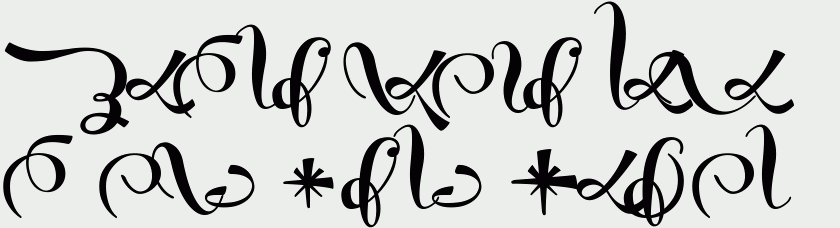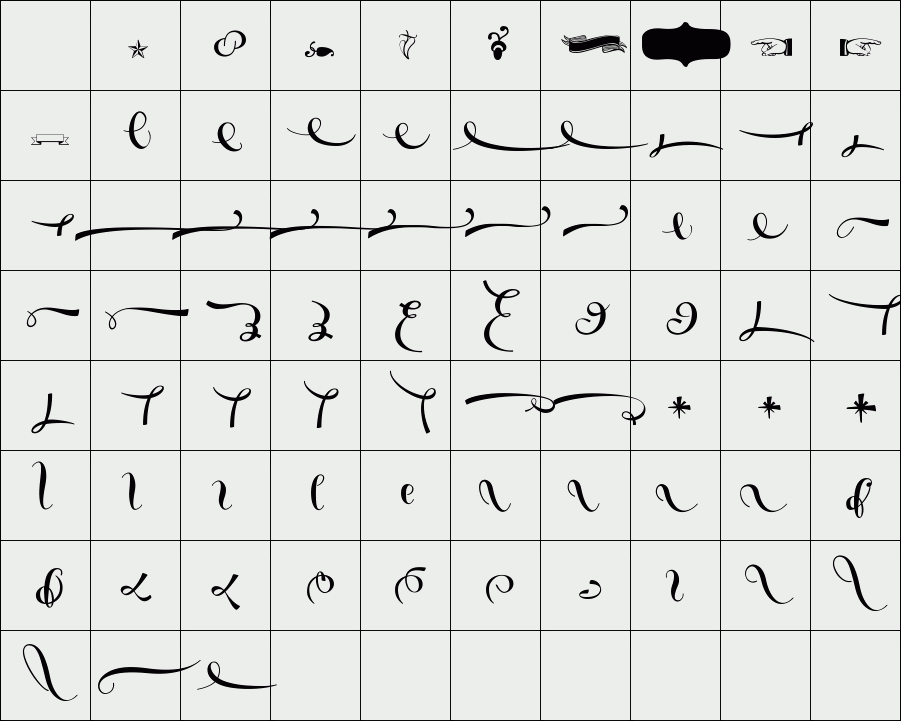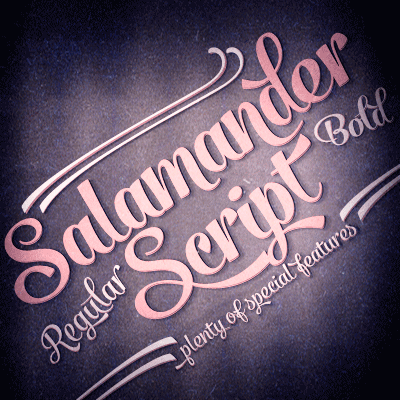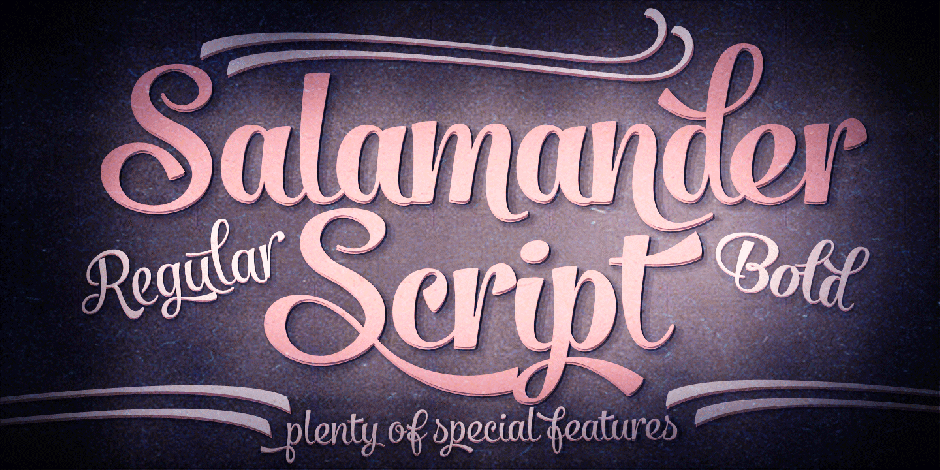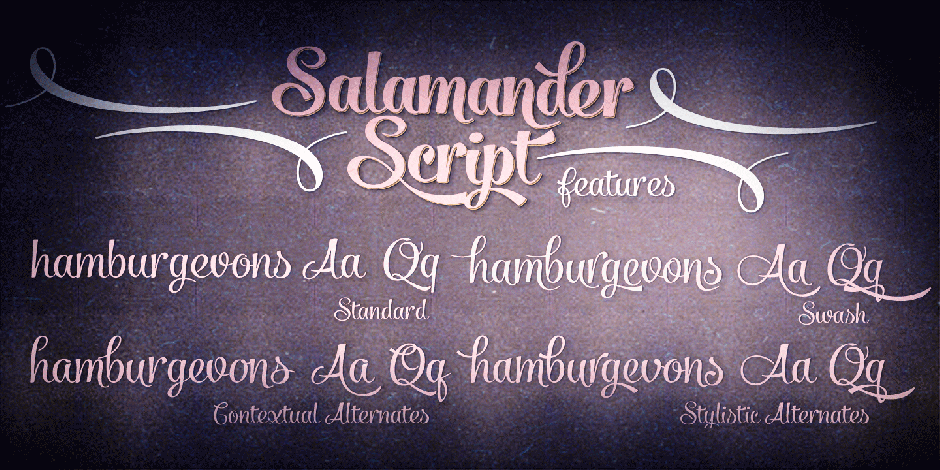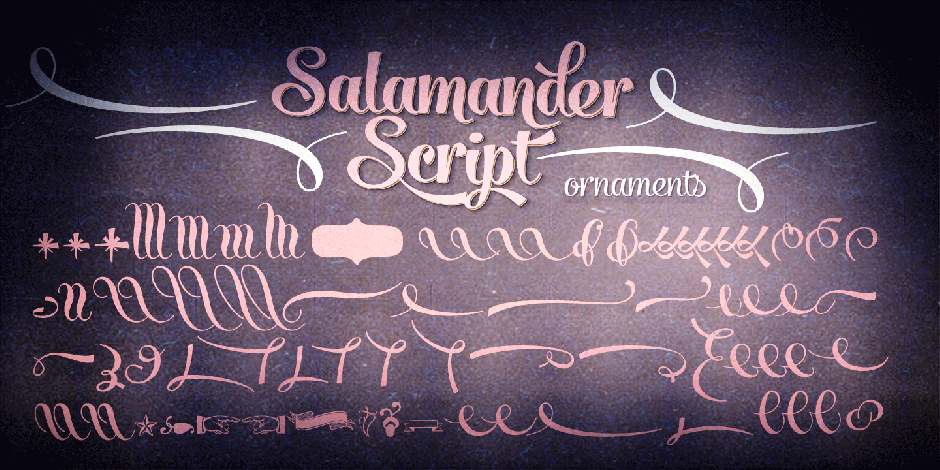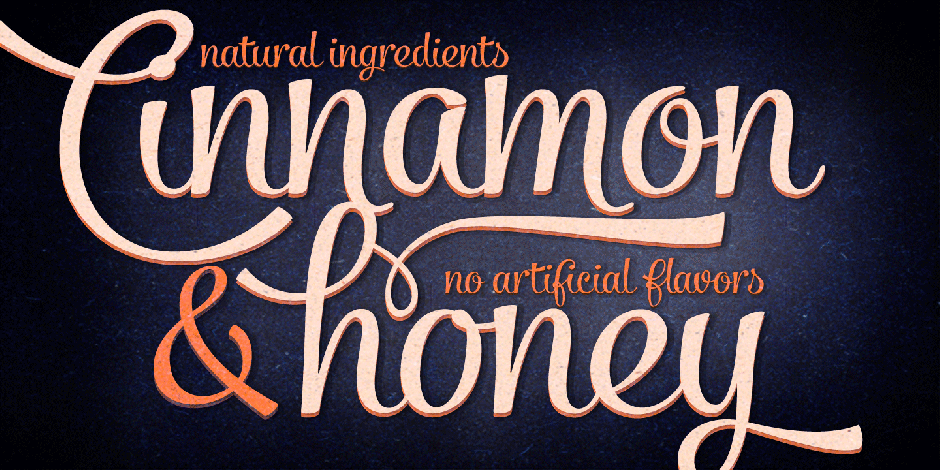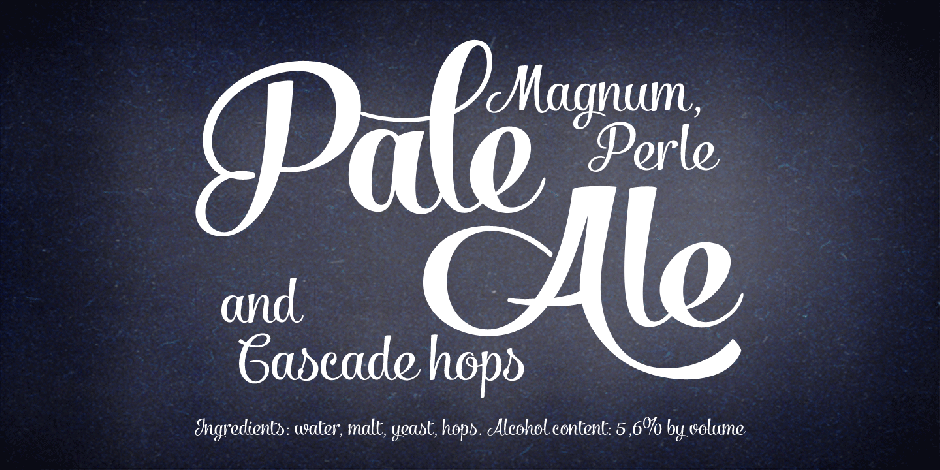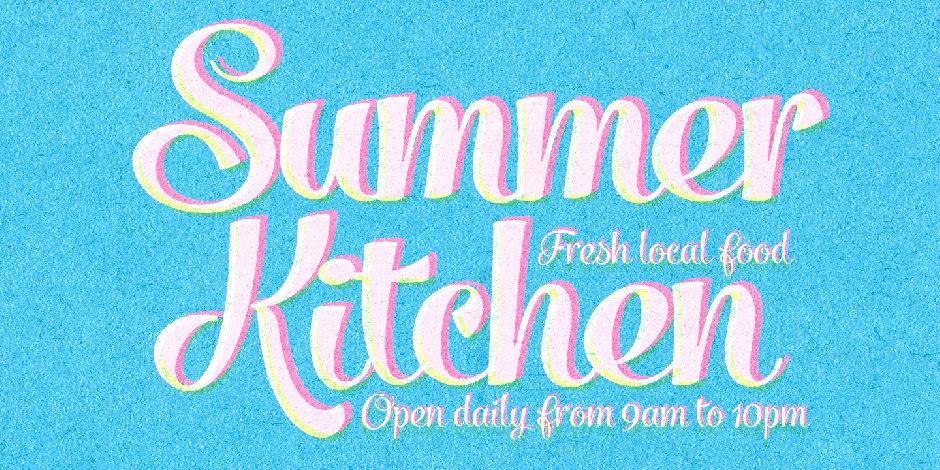
Salamander
/ Salamander Ornaments Bold
Salamander is a playful and agile script family of two weights and matching ornament sets. Click on Swash, Contextual or Stylistic alternates in any Open type savvy application for vivid alternate characters and combine with Salamander Ornaments to perfect your designs.